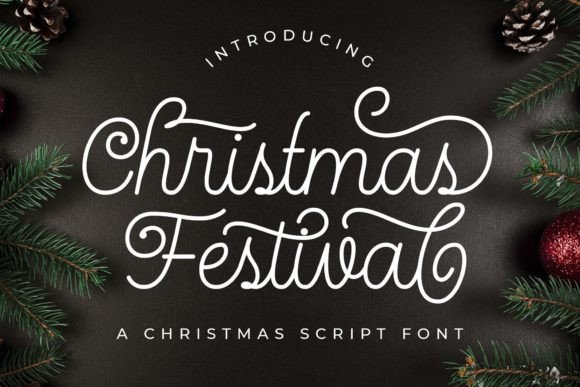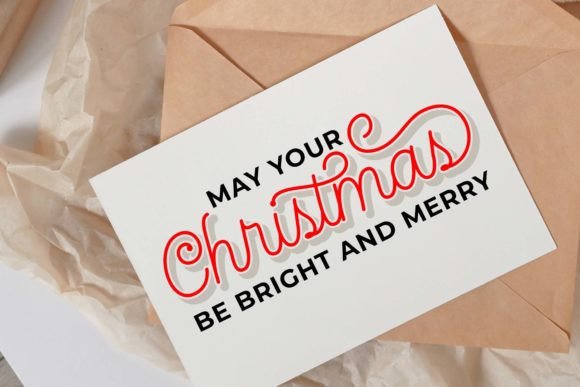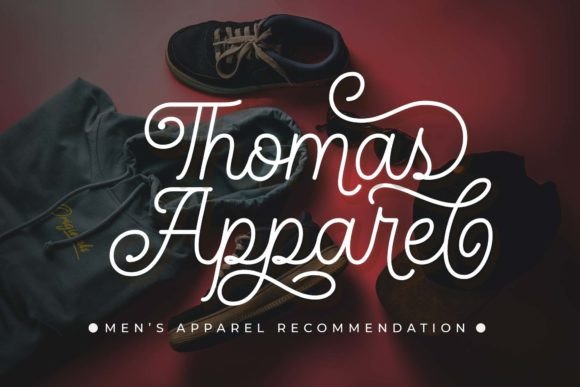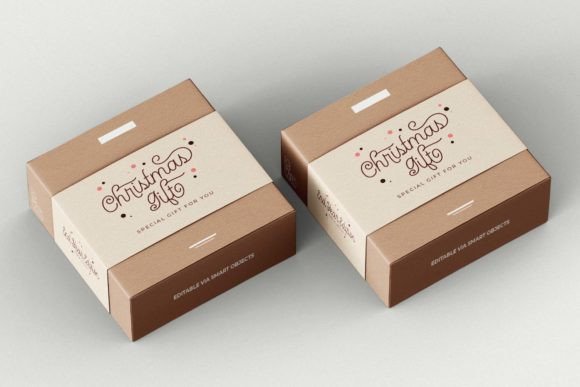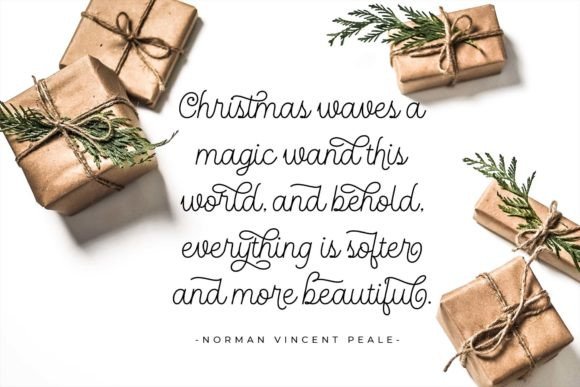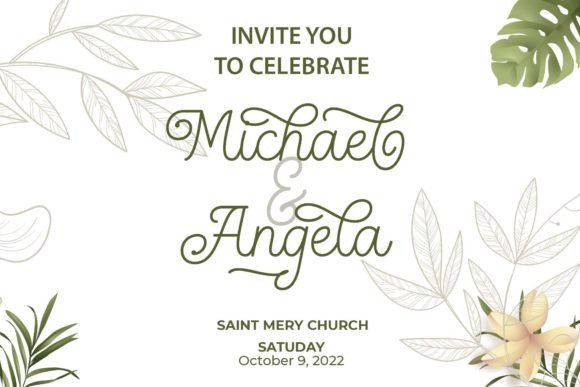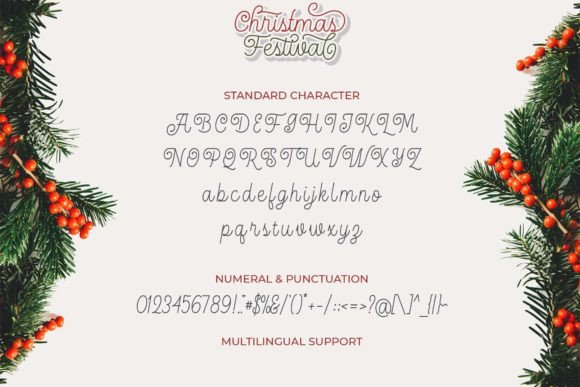
Christmas Festival Font
Christmas Festival is a beautiful and refined script font. It has a classy, elegant, and modern look that can be used for logos, branding, invitations, stationery, wedding designs, social media posts, and much more!